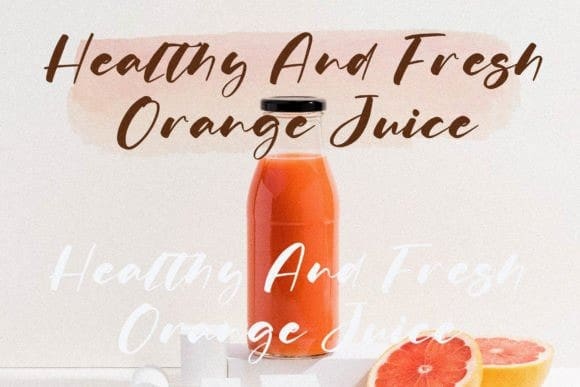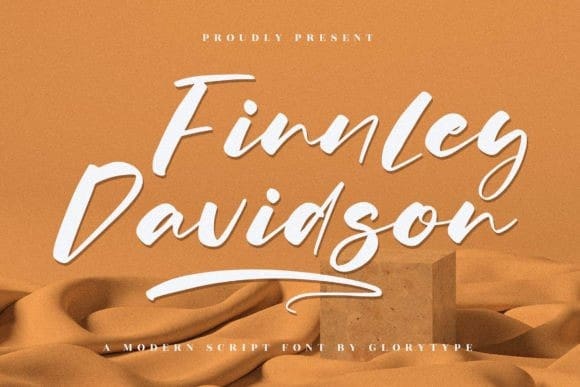
Finnley Davidson Font
Finnley Davidson Font is a modern script font suitable for logos, branding projects, homeware designs, product packaging, mugs, quotes, posters, shopping bags, t-shirts, book covers, name cards, invitation cards, or greeting cards. You can also create labels, photography, watermarks, special events, and other lovely projects that need a beautiful script taste.